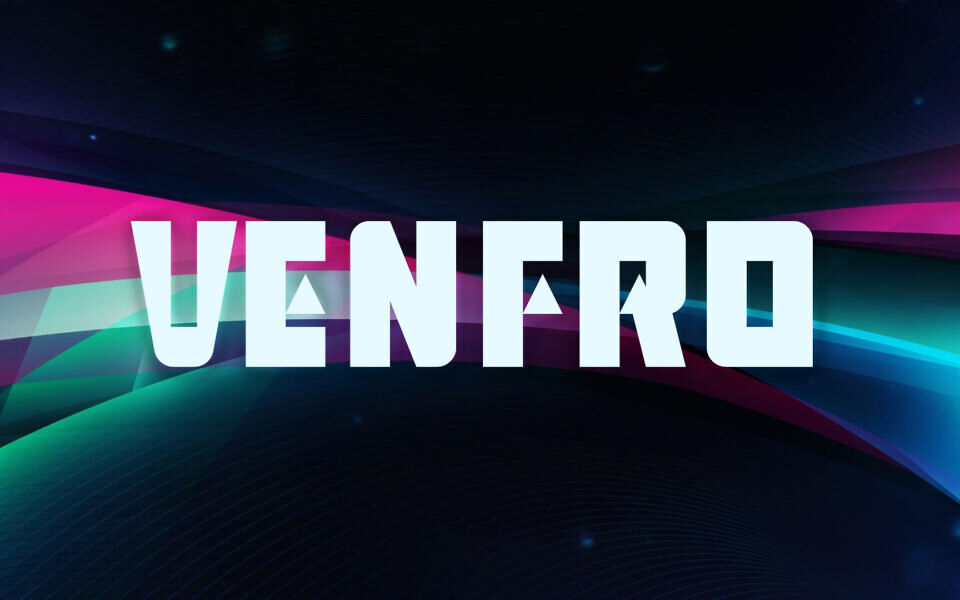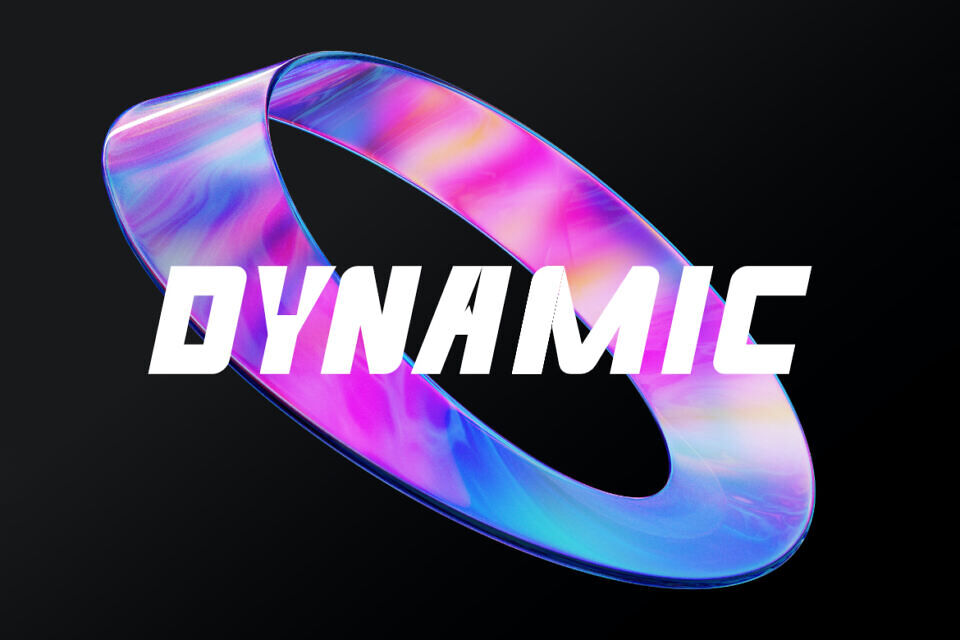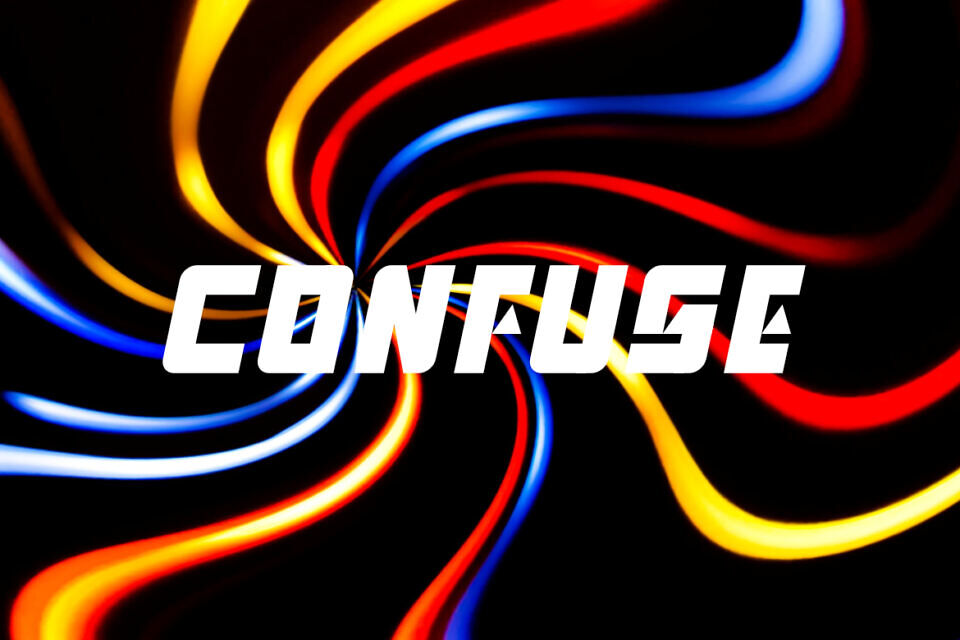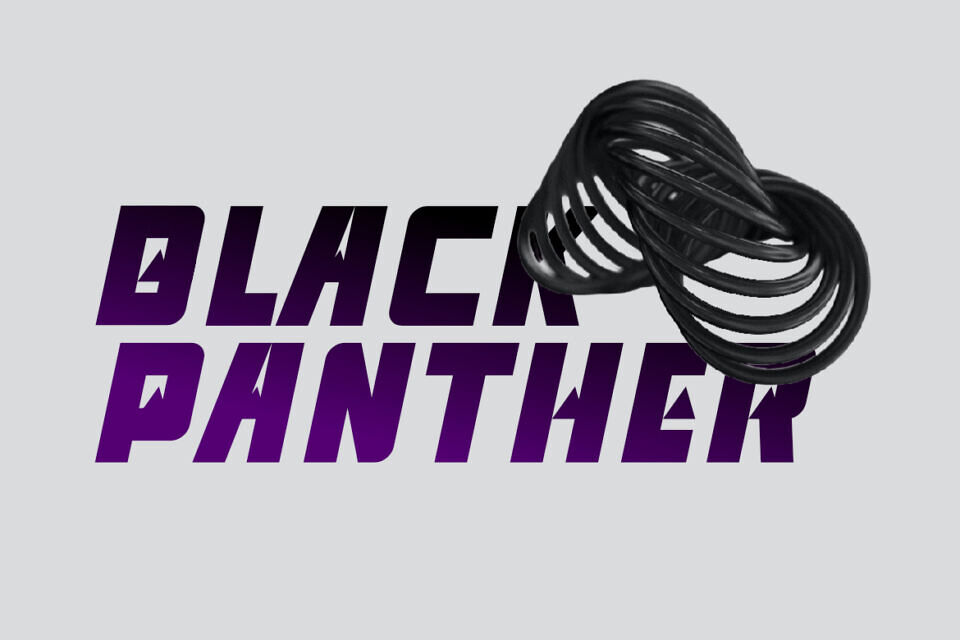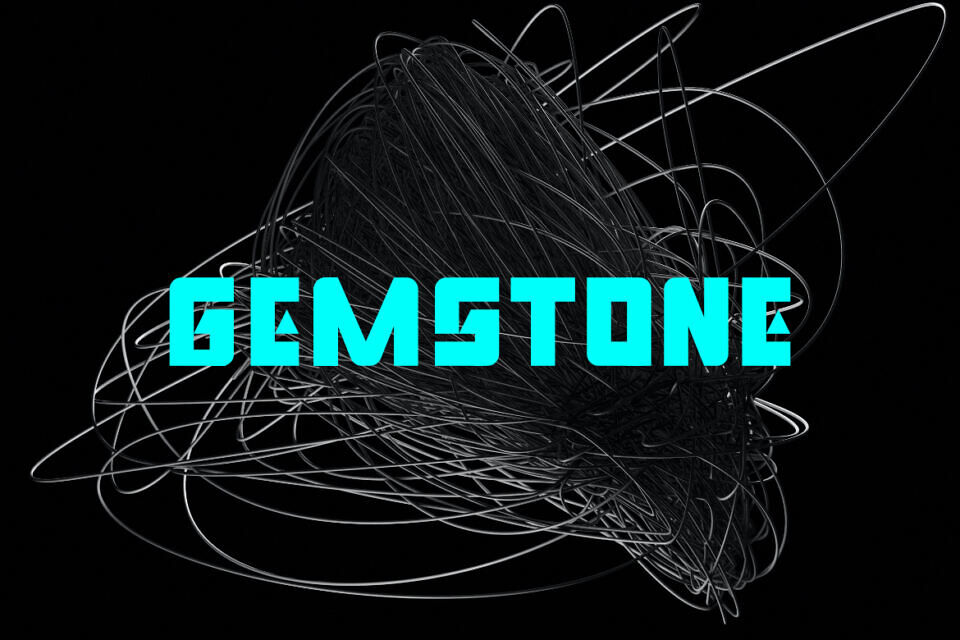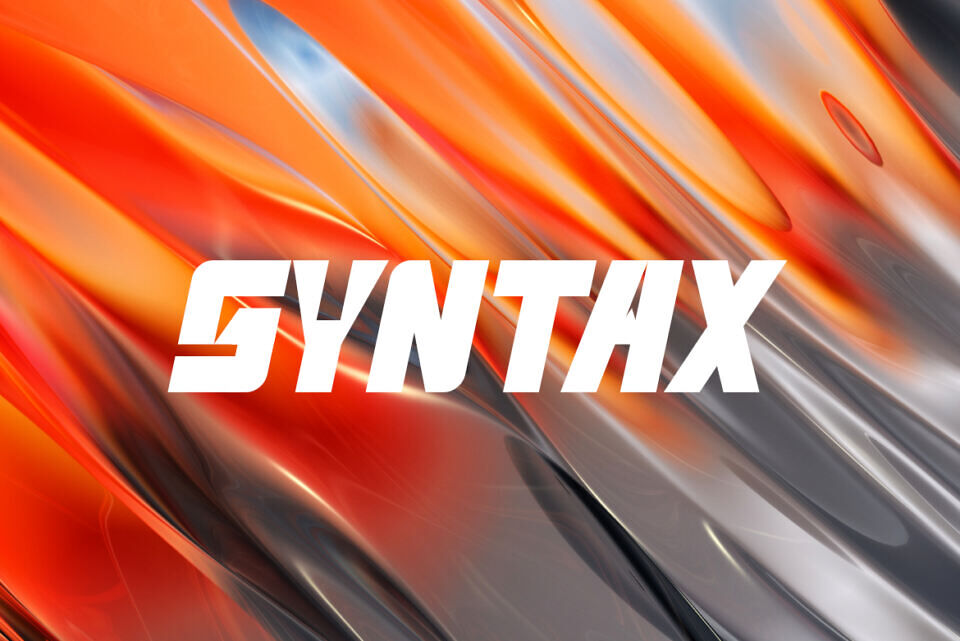
Venfro Font
Venfro, designed by ffeeaarr, is a bold, thick-lettered display sans typeface perfect for impactful designs. Its strong, confident, and dynamic style makes it ideal for logos, advertisements, and branding projects with a futuristic or tech-inspired vibe.
Designed by: ffeeaarr design